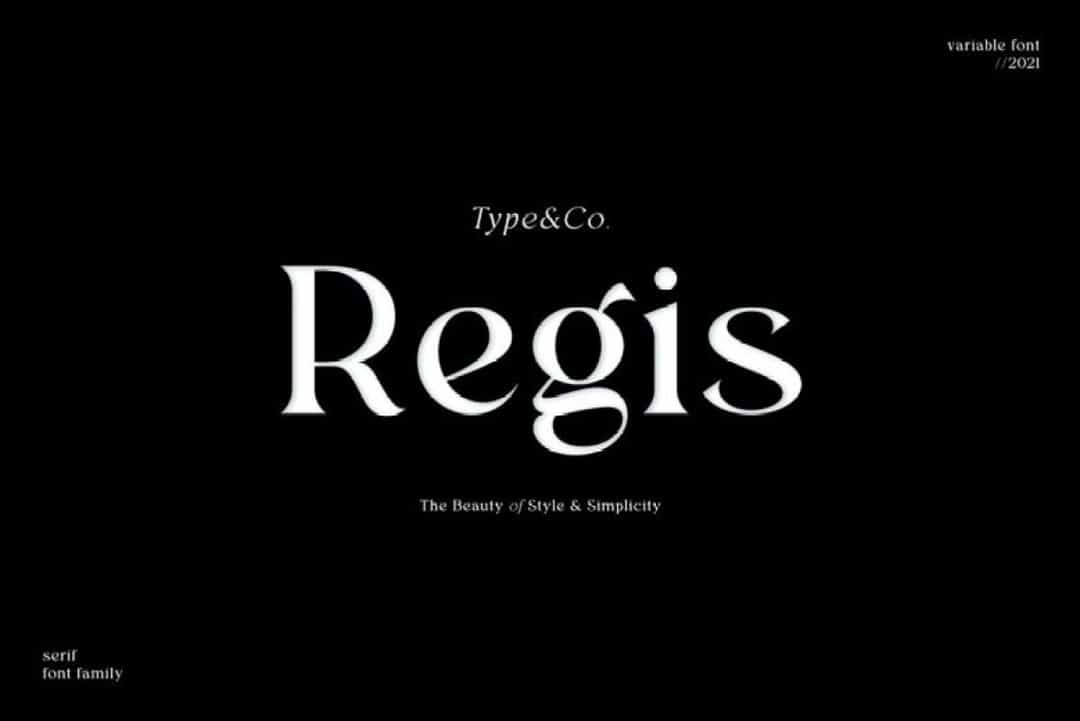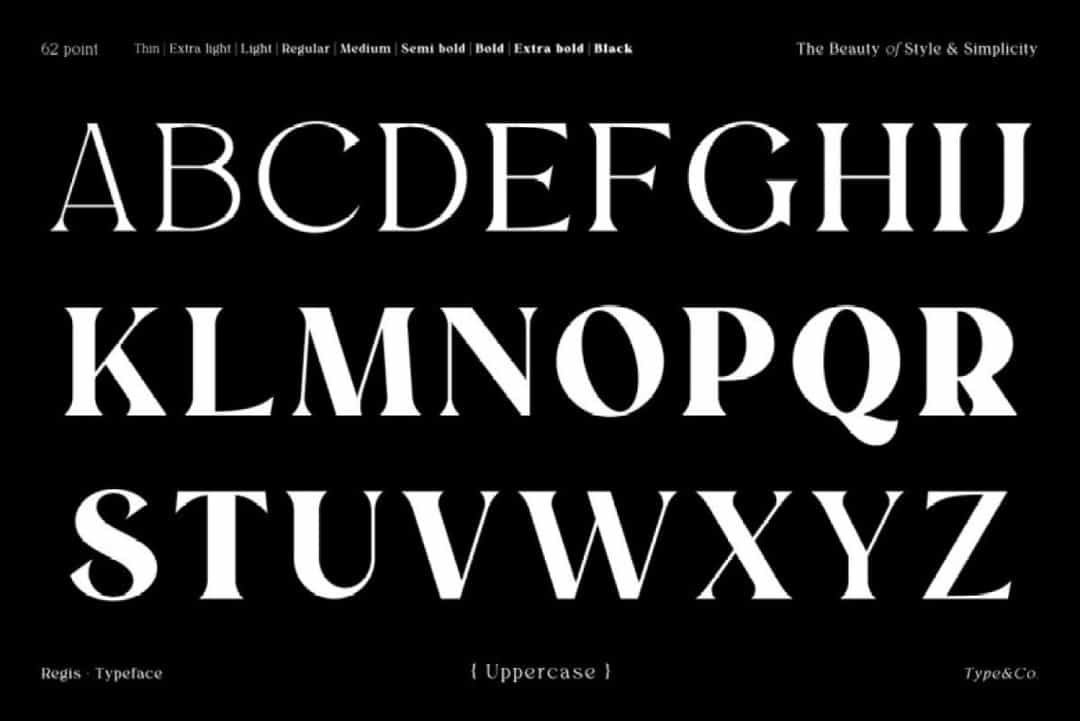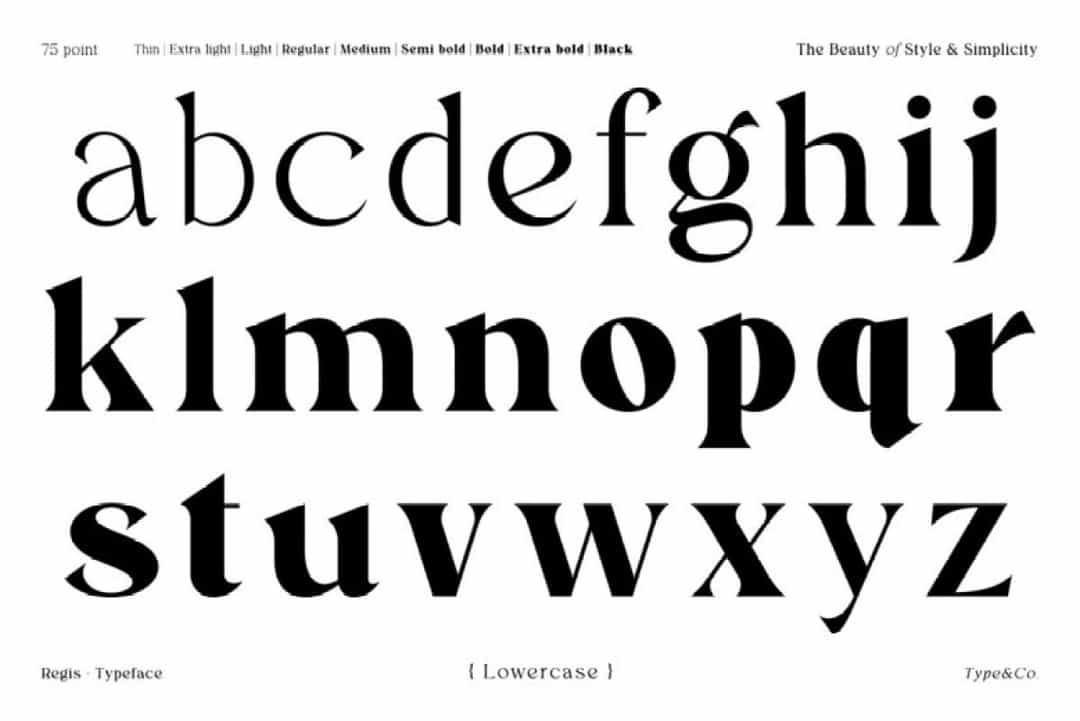
Discover Regis Typeface, part of the Serif Basic Personal collection—a versatile and unique font perfect for adding a personal touch to your projects. Download it for free and enjoy crafting designs with style, from invitations to social media posts. This font is available exclusively for personal use, giving you the freedom to create without limits. Unlock your creativity with Regis Typeface today!
Get to know more about the Regis’ Serif font family for modish and elegance! This font has beautiful ligatures and alternates, is usable in different languages and has a clear and beautiful serif. It means that you should let Regis’ serifs display your ingenuity! Use it with all your creative work and you will see how it will be unique!